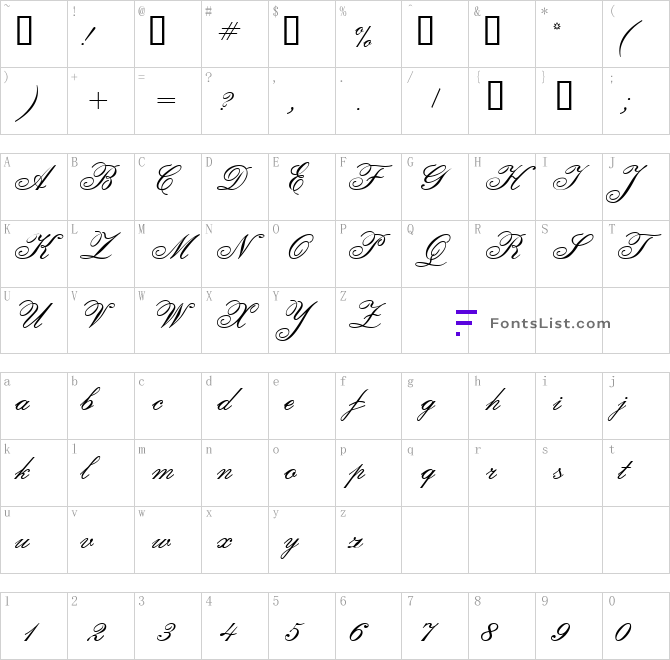
- Font Name:Calligraphia Two
Calligraphia-Two.ttf is a very beautiful artistic font, Calligraphia-Two.ttf is widely used in the design and printing of various books and pictures,Calligraphia-Two.ttf has a strong visual impact,Calligraphia-Two.ttf is a commonly used font in newspapers, magazines and books, and is used in posters, e-commerce Poster design, store design, logo design, font design and other fields.Calligraphia-Two.